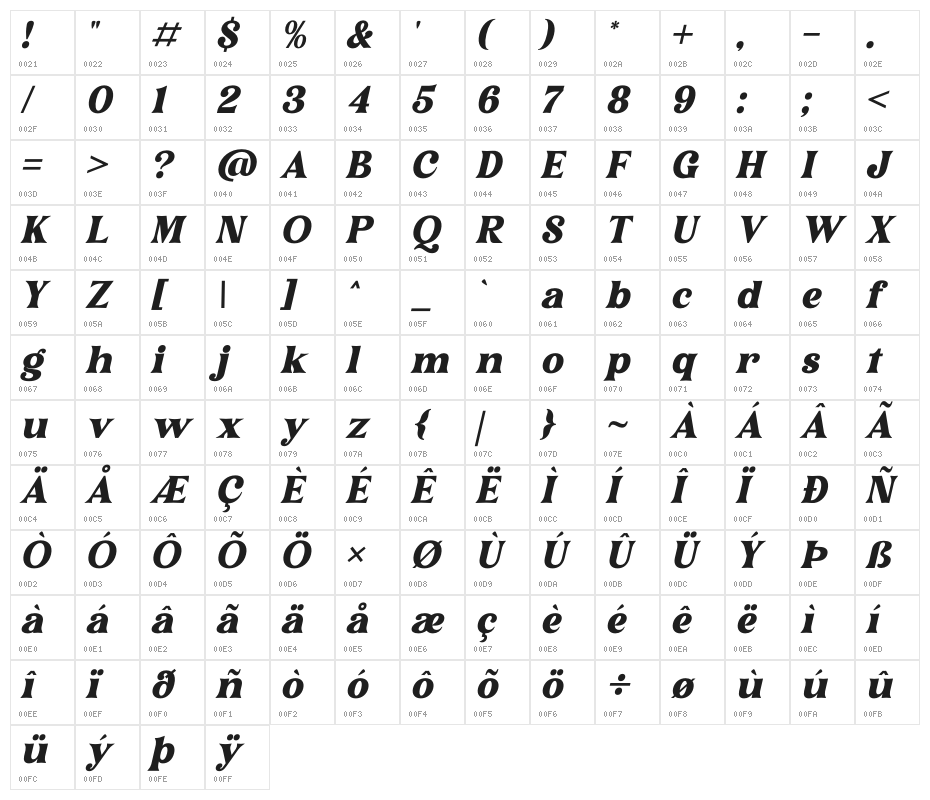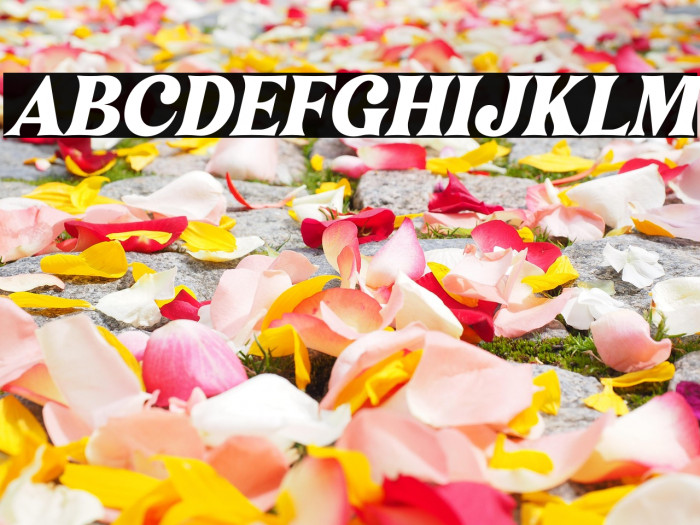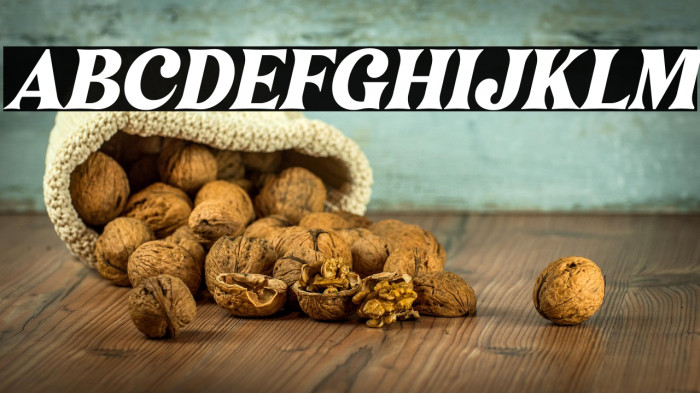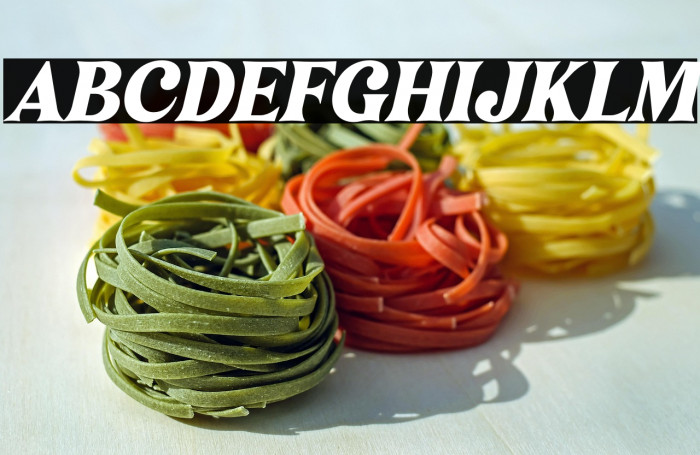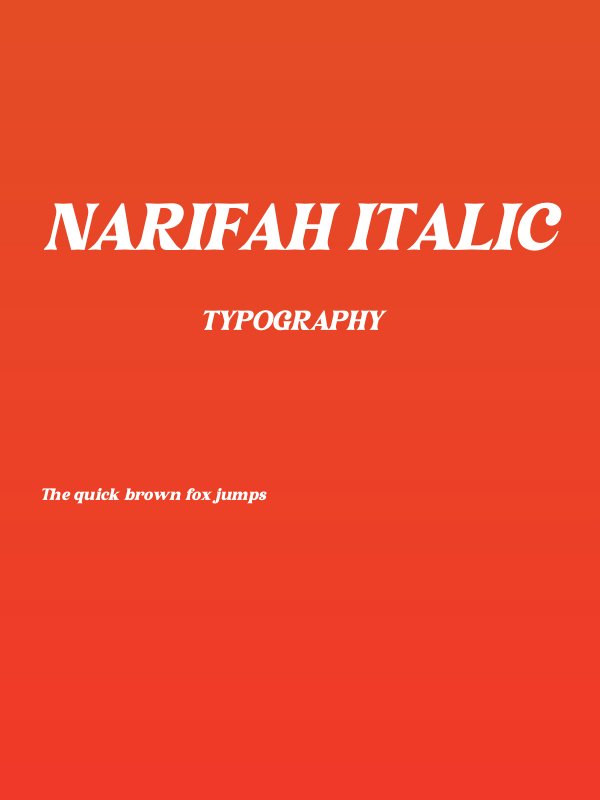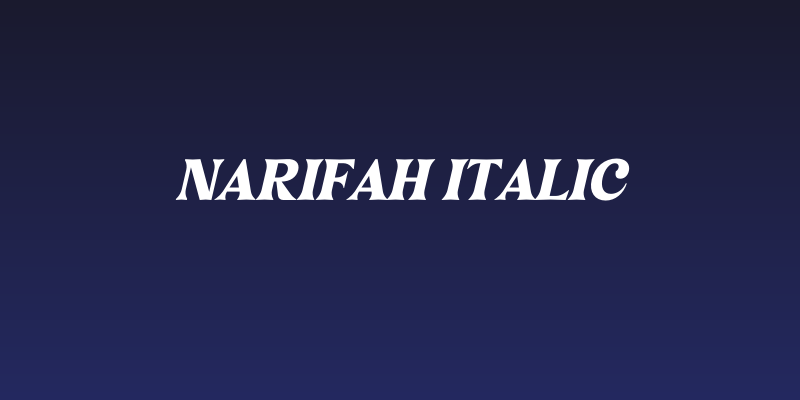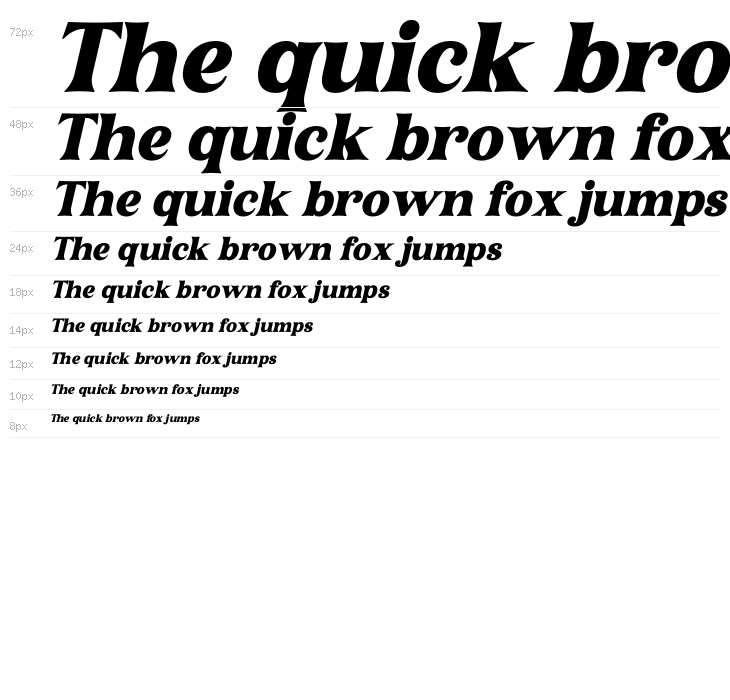
Narifah Italic Font
Narifah Italic Description
This font features a bold and dynamic italic style, characterized by its strong, flowing strokes and pronounced serifs. The uppercase letters exhibit a sense of movement and elegance, while the lowercase letters maintain a consistent slant, enhancing readability. The numerals are robust and well-defined, complementing the overall aesthetic. Special characters are crafted with the same attention to detail, ensuring they integrate seamlessly with the rest of the typeface. The font's design is both classic and versatile, making it suitable for a variety of applications.
| Use Case | Headlines, Logos, Editorial design |
| Proposed Projects | Ideal for branding, editorial design, book covers, and elegant invitations. |